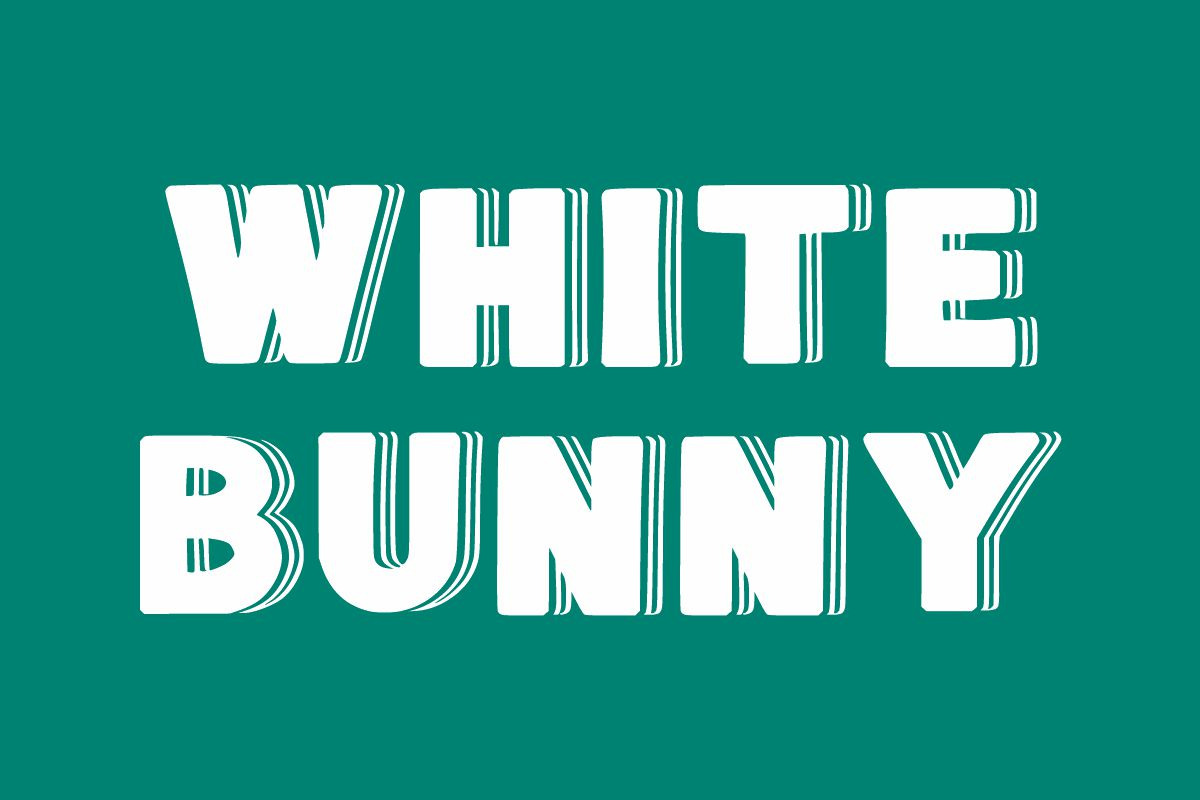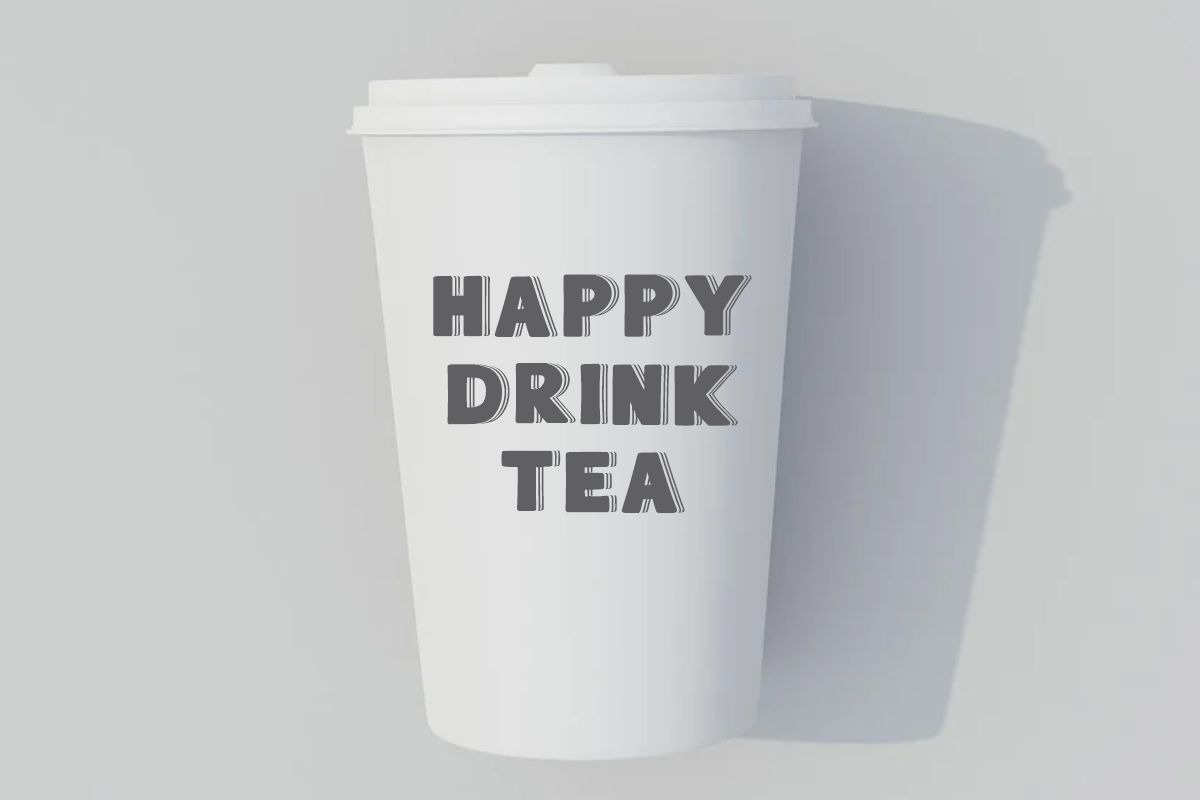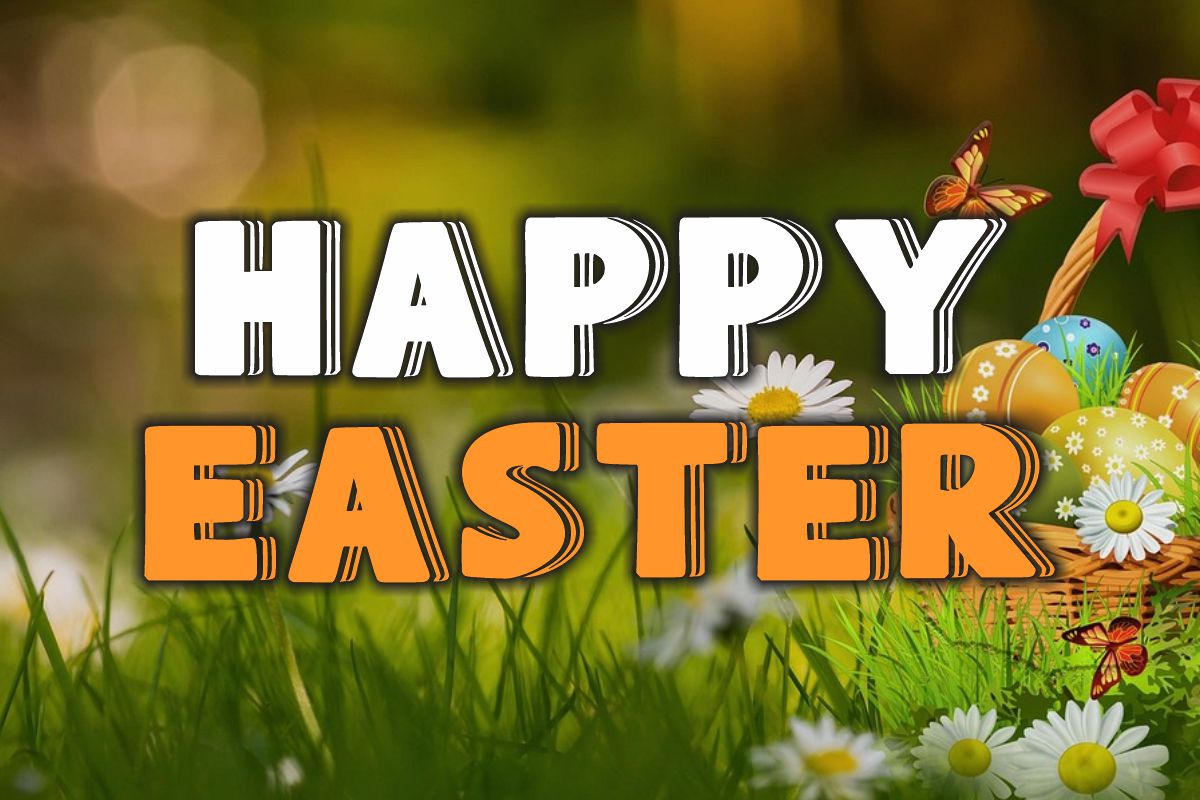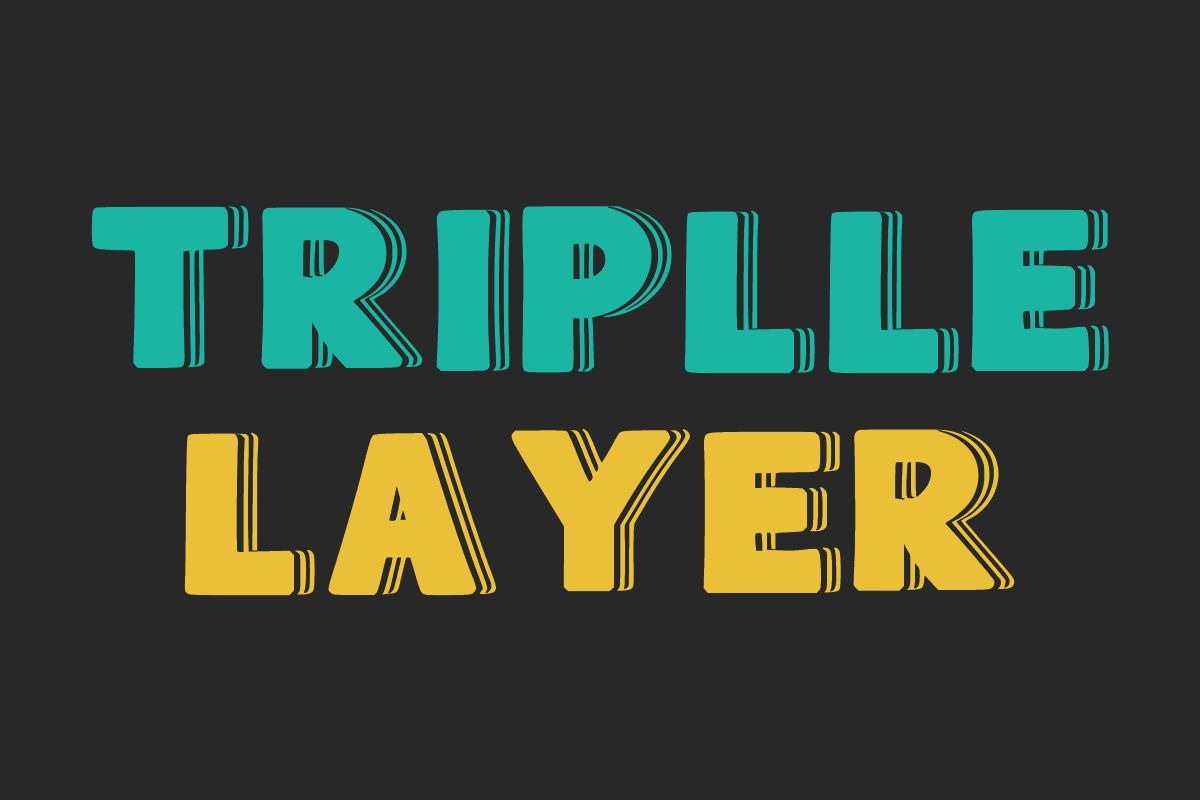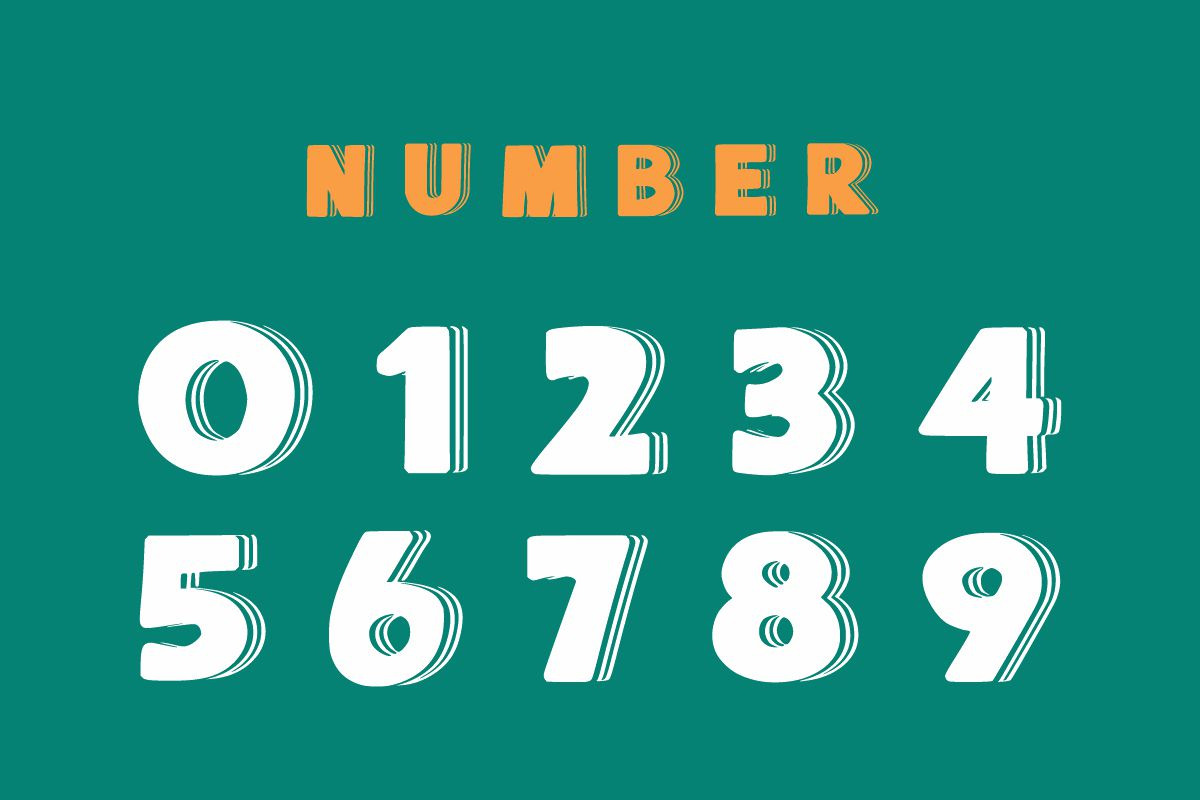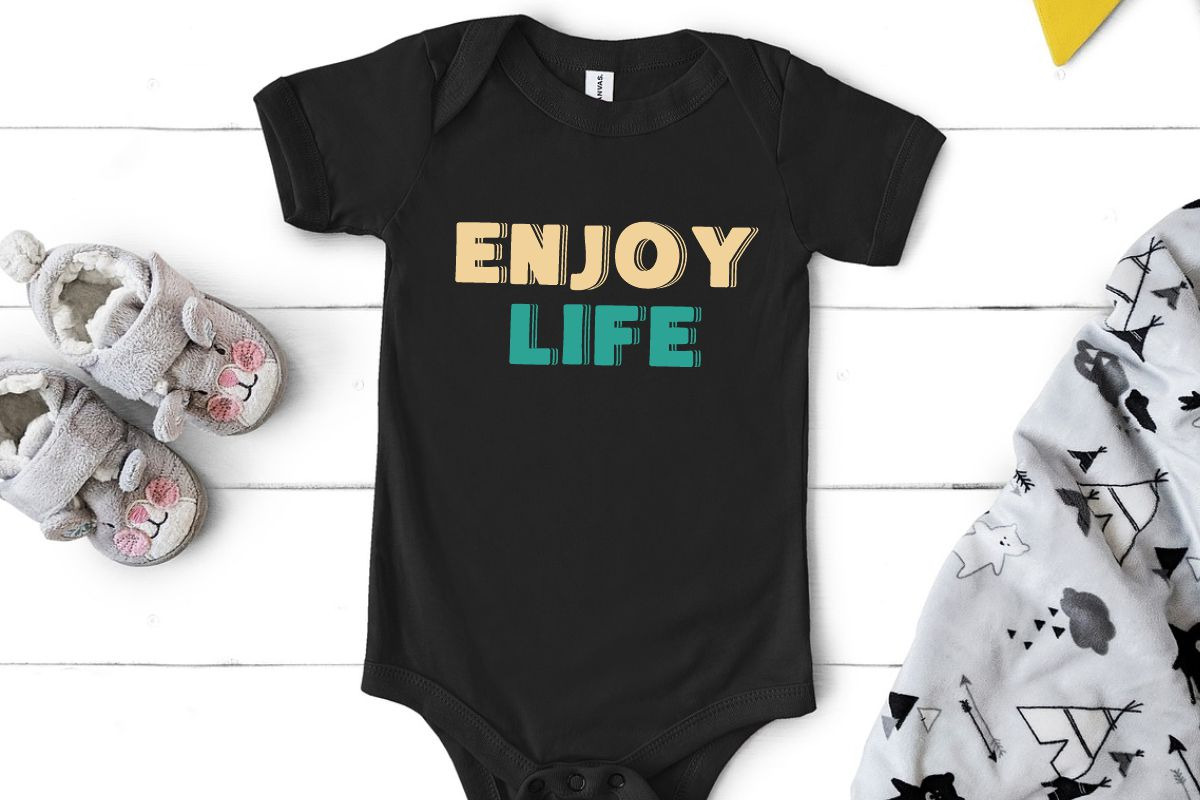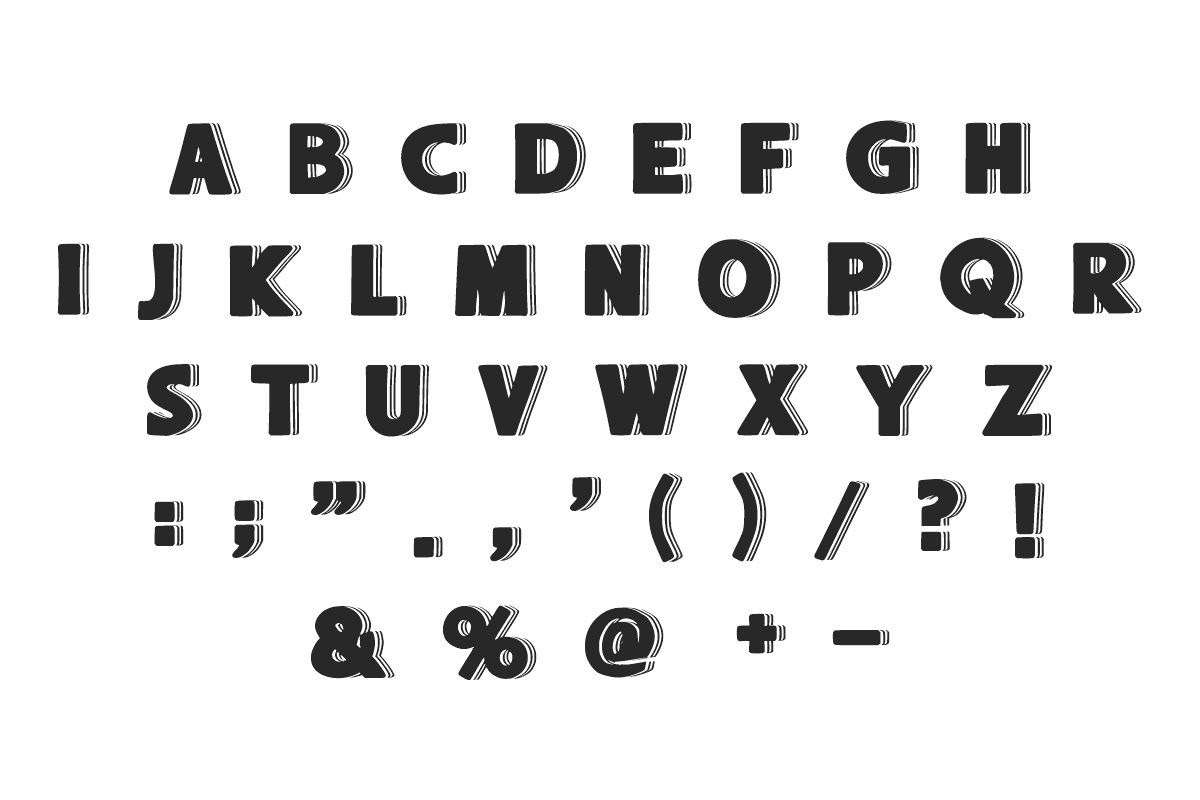
Hoki Dog
Hoki Dog is a playful, bold, childish, easy-to-read display font that conveys impeccable friendliness. Whether you’re using it for crafts, digital design, presentations, or greeting cards, this font has the potential to become your favorite go-to font, no matter the occasion!